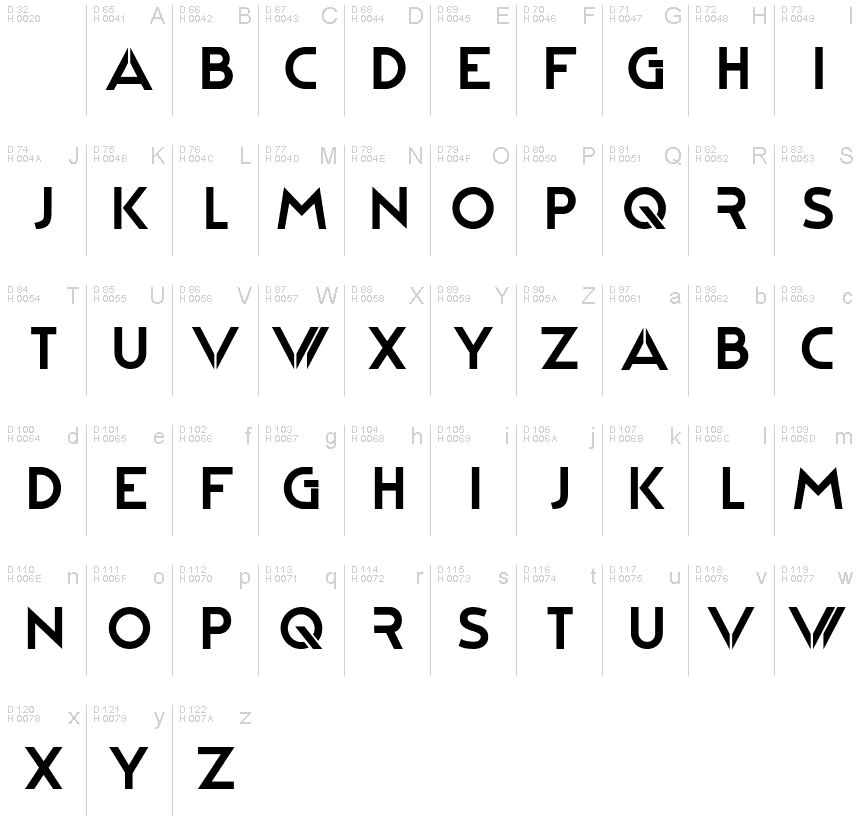
Yaroslav Regular
Yaroslav, designed by Vladimir Nikolic, is a modern sans serif font with a semi-expanded width. Its clean and sleek lines make it perfect for various projects.
For branding and logo design, the bold font type conveys confidence and professionalism. When used in editorial design, the regular weight adds elegance to magazines and newspapers. Yaroslav's semi-expanded width makes it ideal for website headers and titles, providing a balanced look that catches the eye.
Whether in print or on screen, this versatile font style brings a contemporary touch to any project.